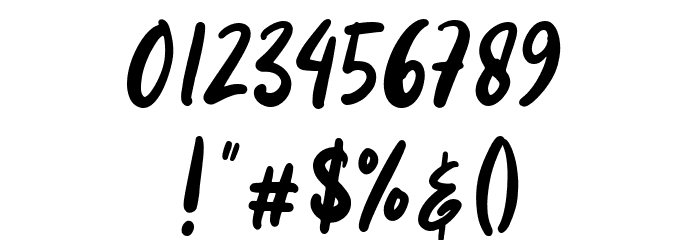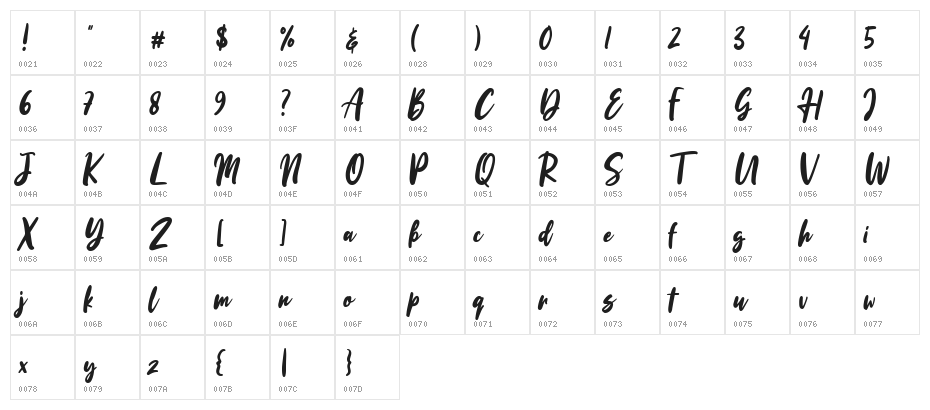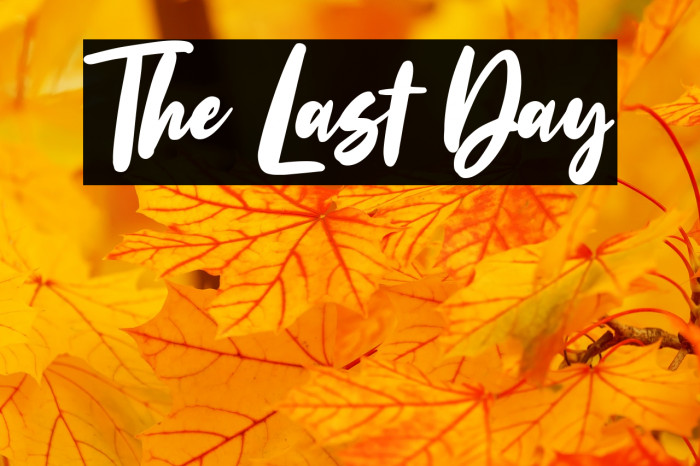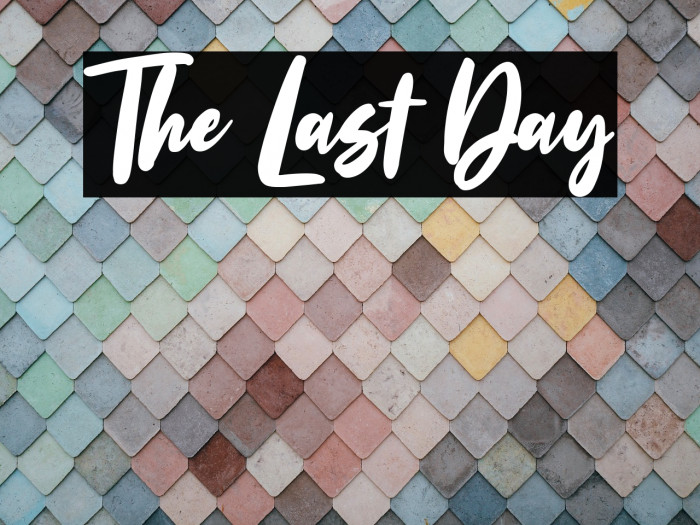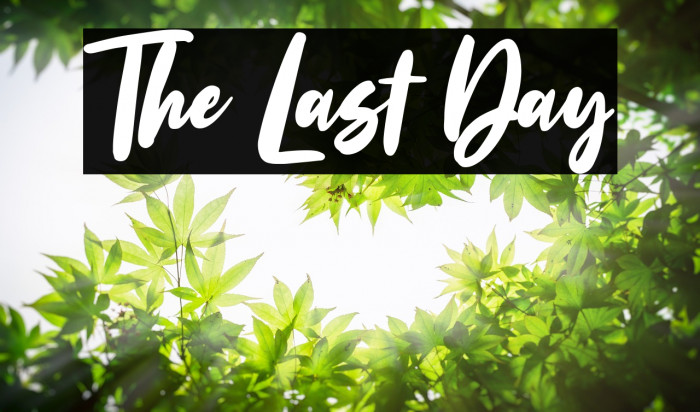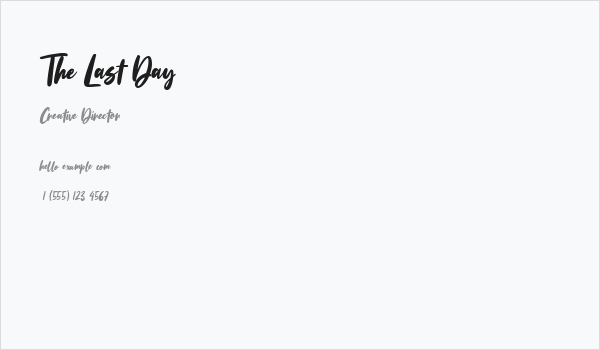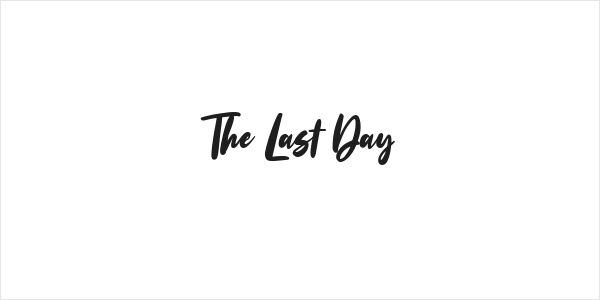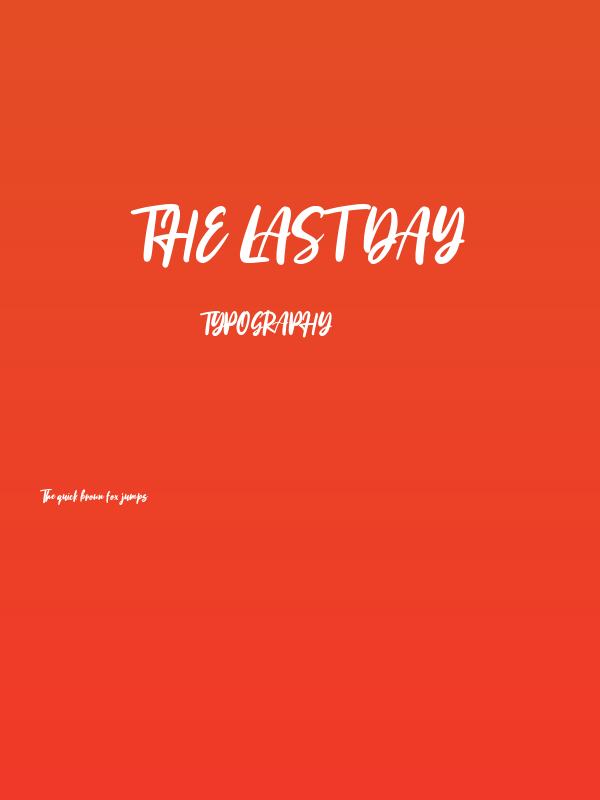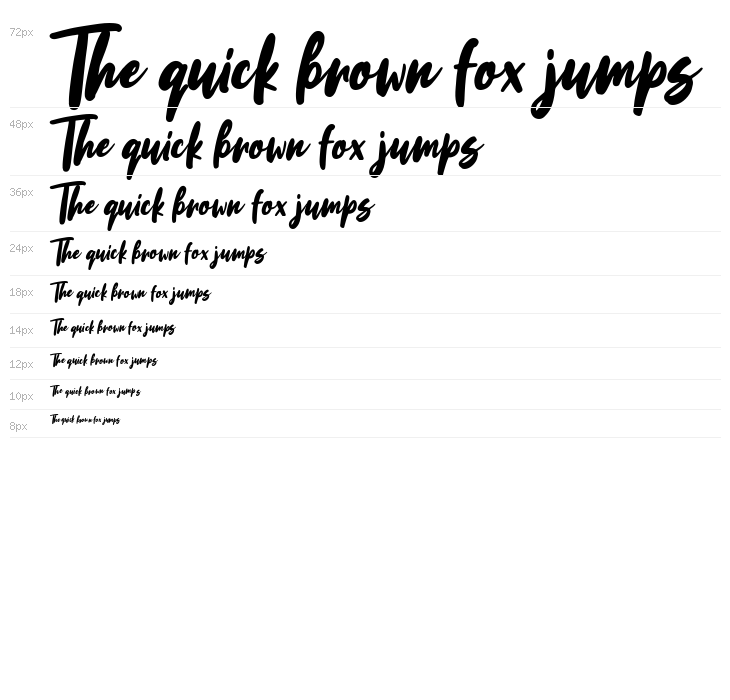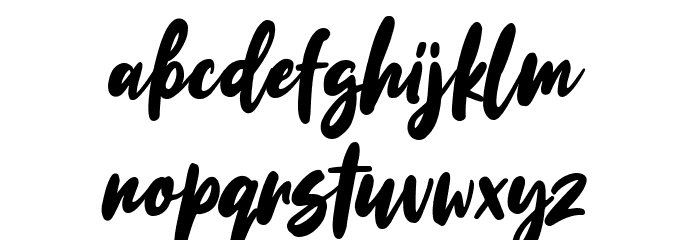
This font features a bold and expressive script style, characterized by its fluid and dynamic strokes. The letters are connected, giving it a handwritten appearance that exudes energy and personality. The uppercase letters are tall and slightly slanted, while the lowercase letters maintain a consistent flow with a playful touch. The numbers and special characters are crafted to match the overall style, ensuring cohesion across all elements. This font is perfect for projects that require a personal and artistic touch, such as invitations, posters, and branding materials.
| Proposed Projects | Ideal for invitations, posters, branding, and any project needing a personal, artistic touch. |